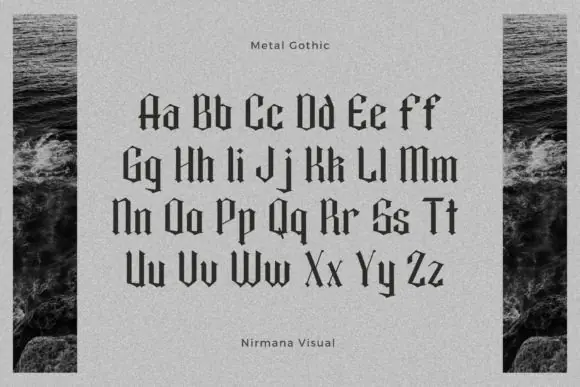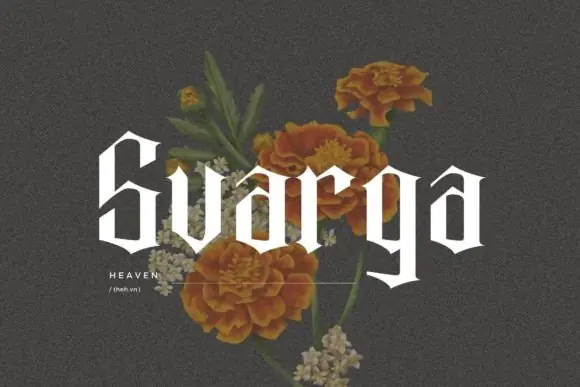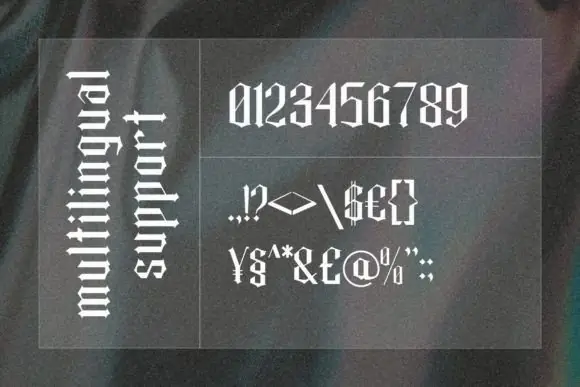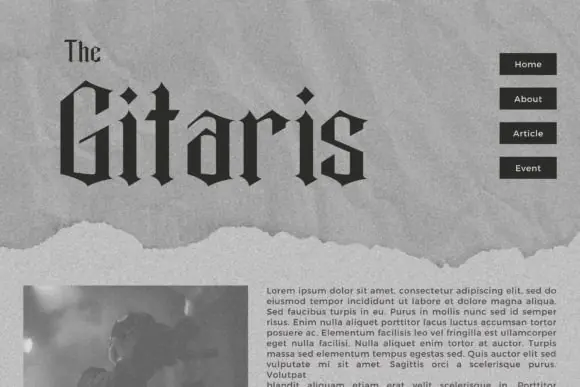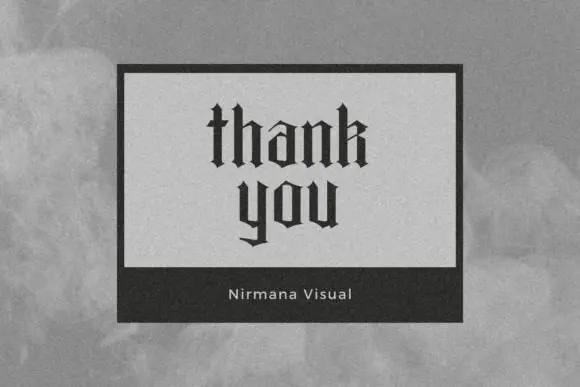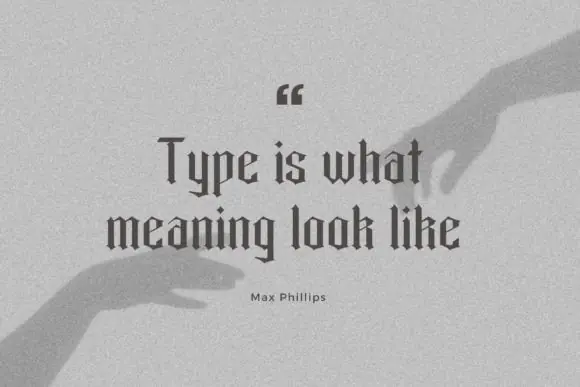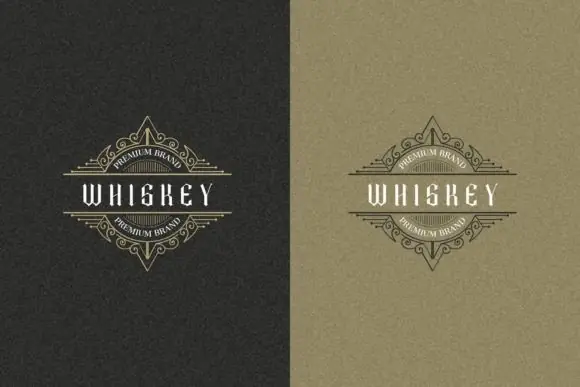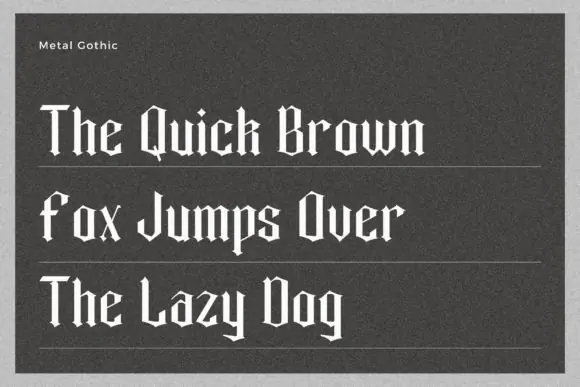
Create powerful, bold, and visually striking designs with Metal Gothic Font, a stylish blackletter typeface made for projects that need strong personality and high-impact typography. With its gothic-inspired structure and bold decorative style, this font is perfect for designs that need a dramatic, edgy, and professional look.
Metal Gothic offers beautiful typographic harmony across a wide variety of creative projects, making it a great choice for designers, branding creators, apparel sellers, music artists, poster designers, social media content creators, and small business owners. It works especially well for logos, branding, social media posts, advertisements, and product designs, helping your visuals stand out with a strong gothic identity.
Use Metal Gothic for heavy metal artwork, band logos, album covers, streetwear designs, t-shirts, posters, flyers, product packaging, labels, stickers, gaming graphics, tattoo-inspired designs, and digital marketing creatives. Its bold blackletter appearance gives your text a premium, dark, vintage, and artistic feel while still remaining suitable for modern design layouts.
Whether you are creating a gothic brand identity, a bold music poster, an apparel graphic, a promotional ad, or a dramatic product label, Metal Gothic Font gives your typography a memorable and commanding presence.
Key Style Features